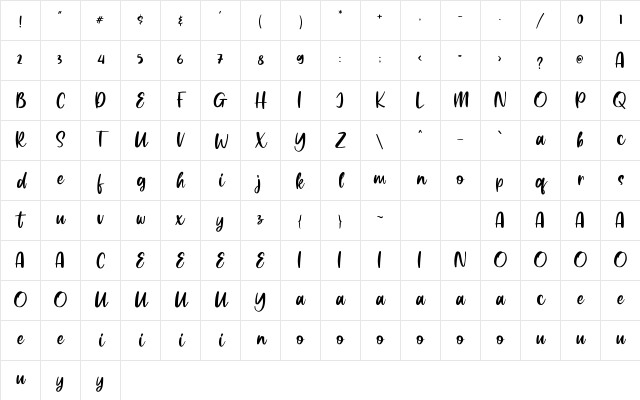
Wakeup Regular Free Font
Wakeup Regular
Designer: holis majid
Design Context for Wakeup
Wakeup is a composed and adaptable typeface that performs quietly and consistently across a wide range of design contexts.